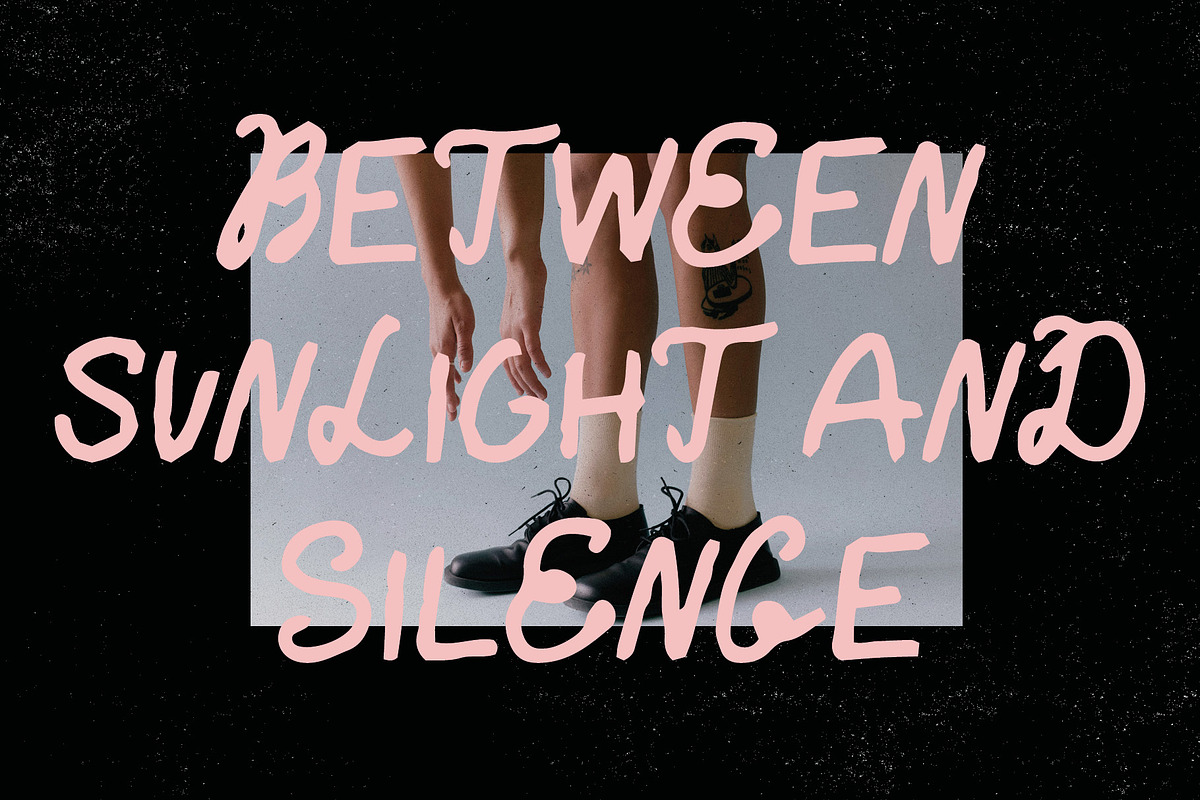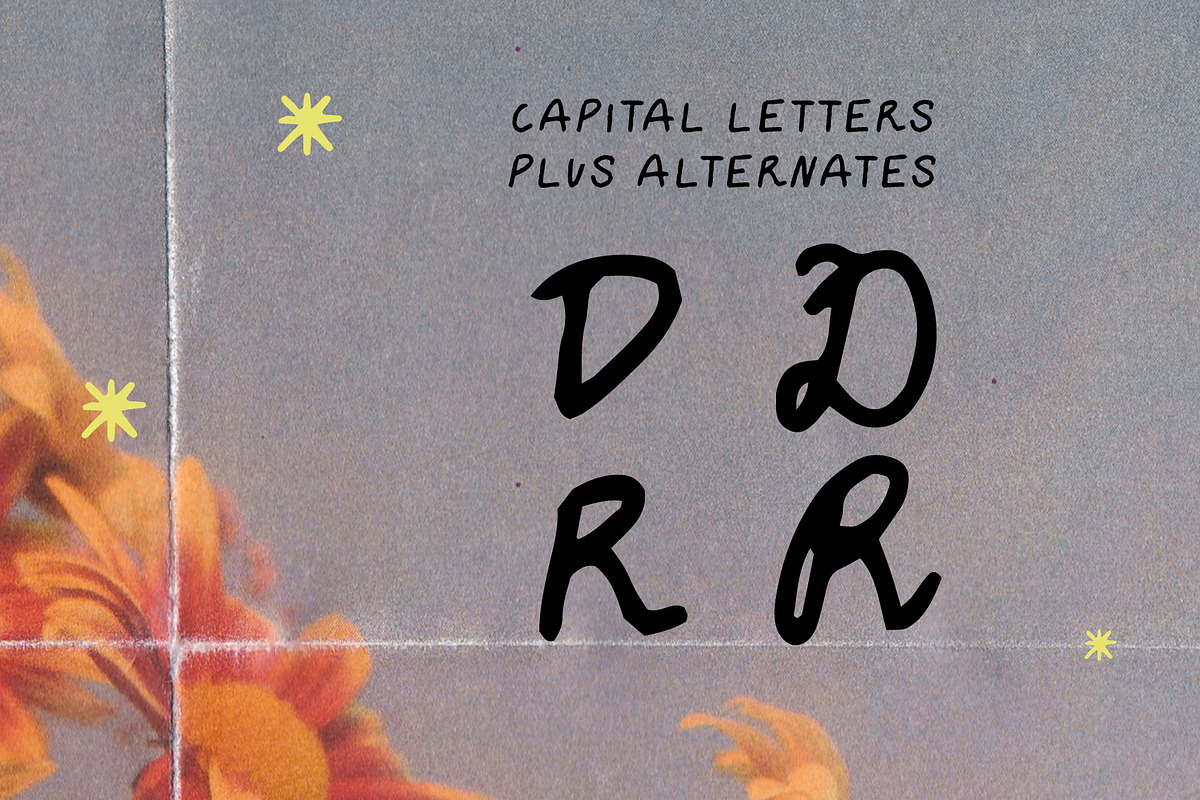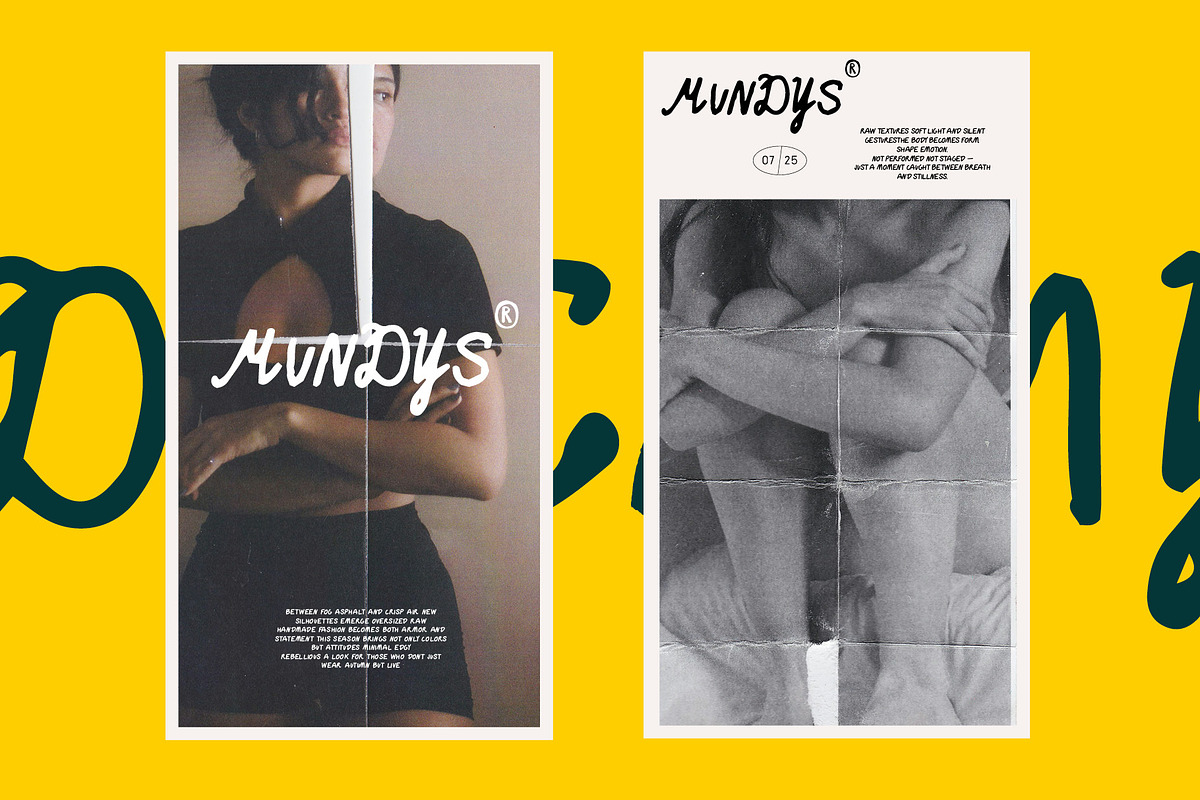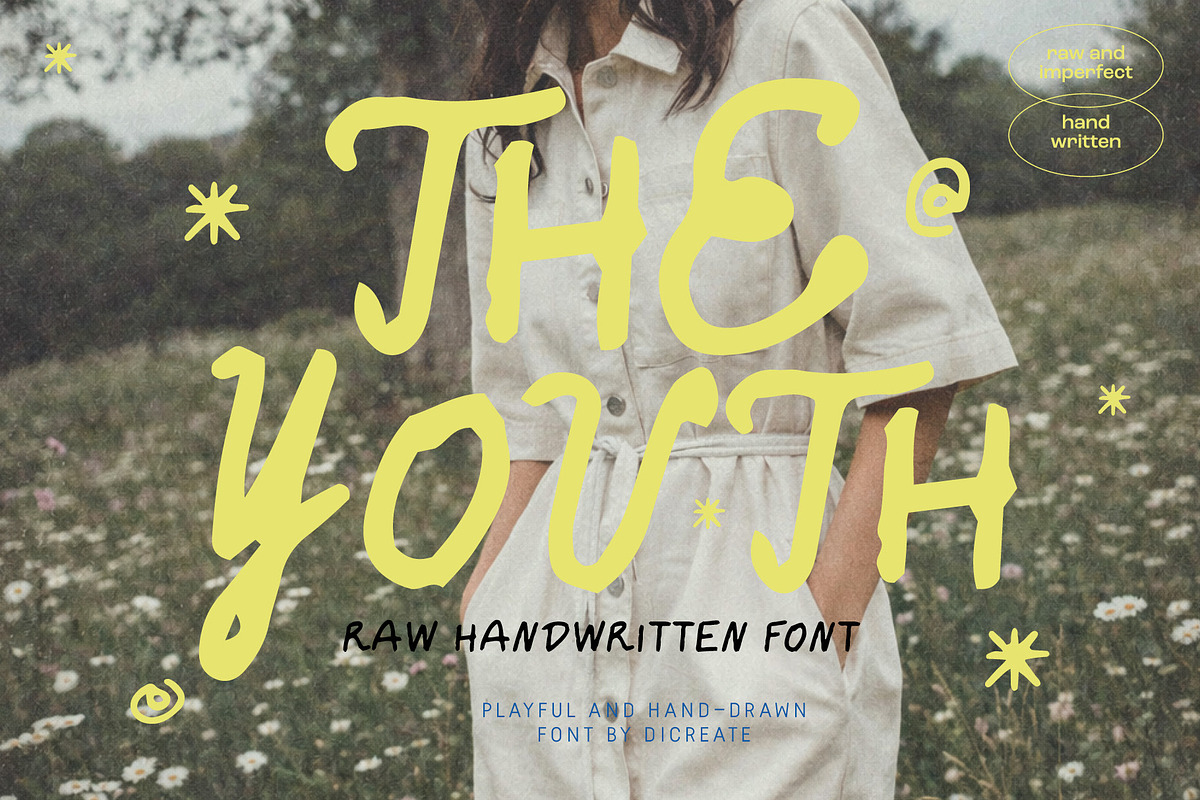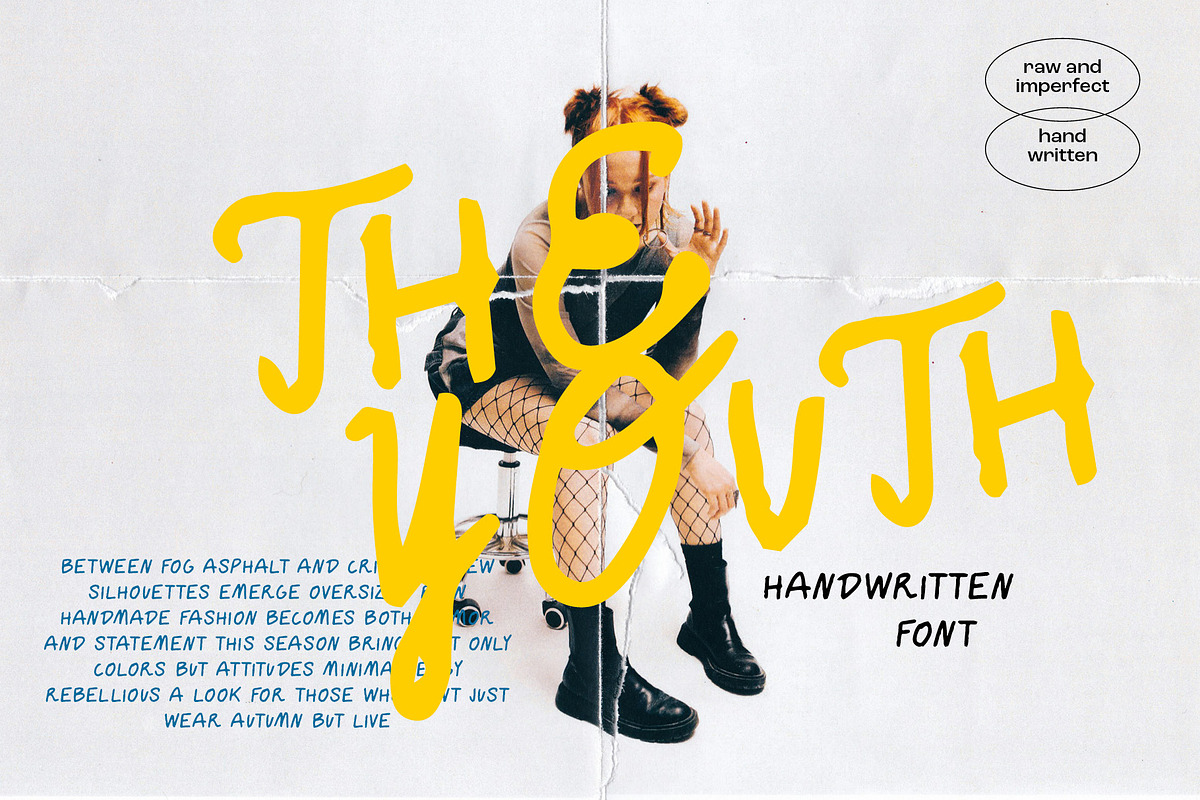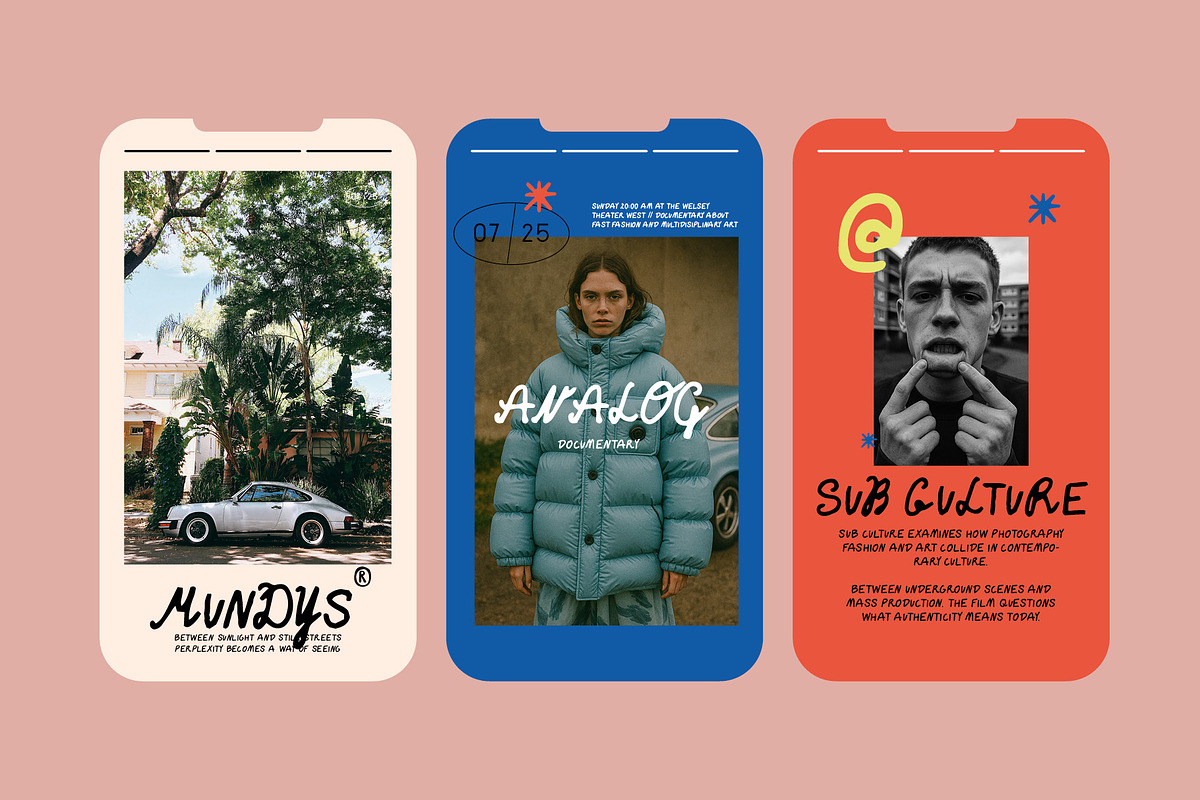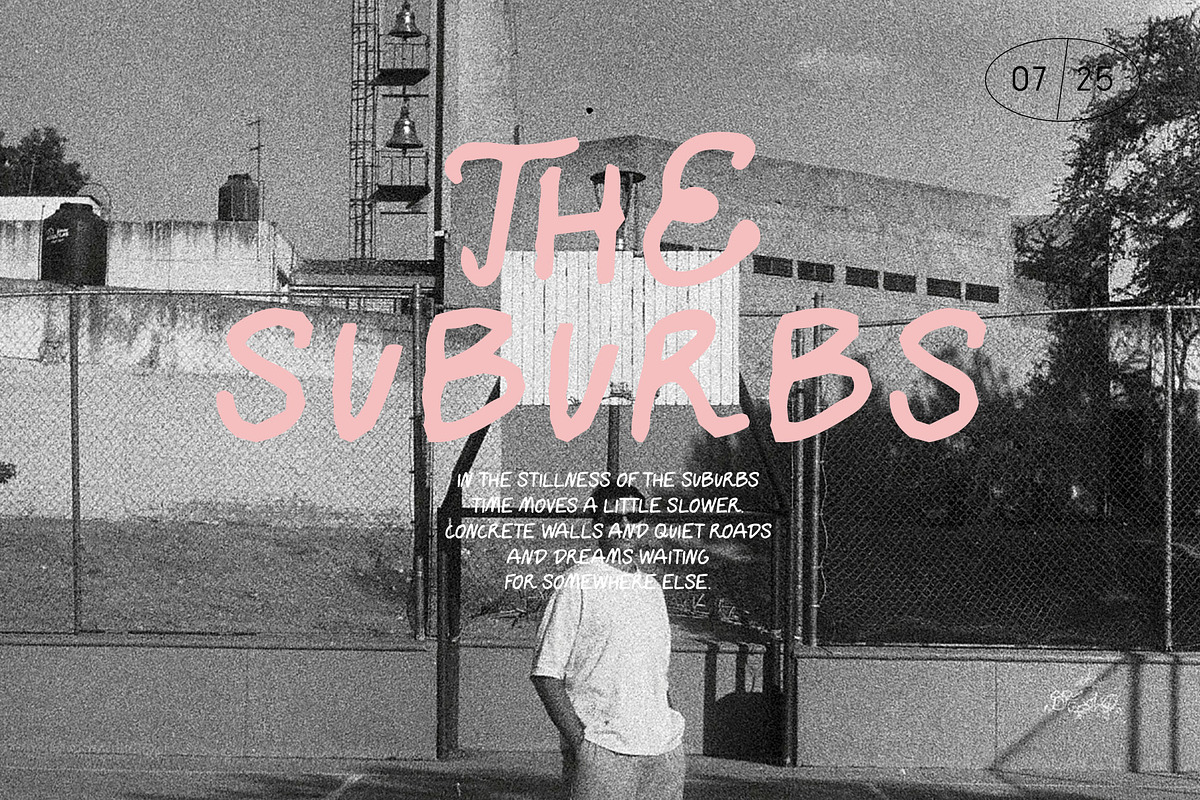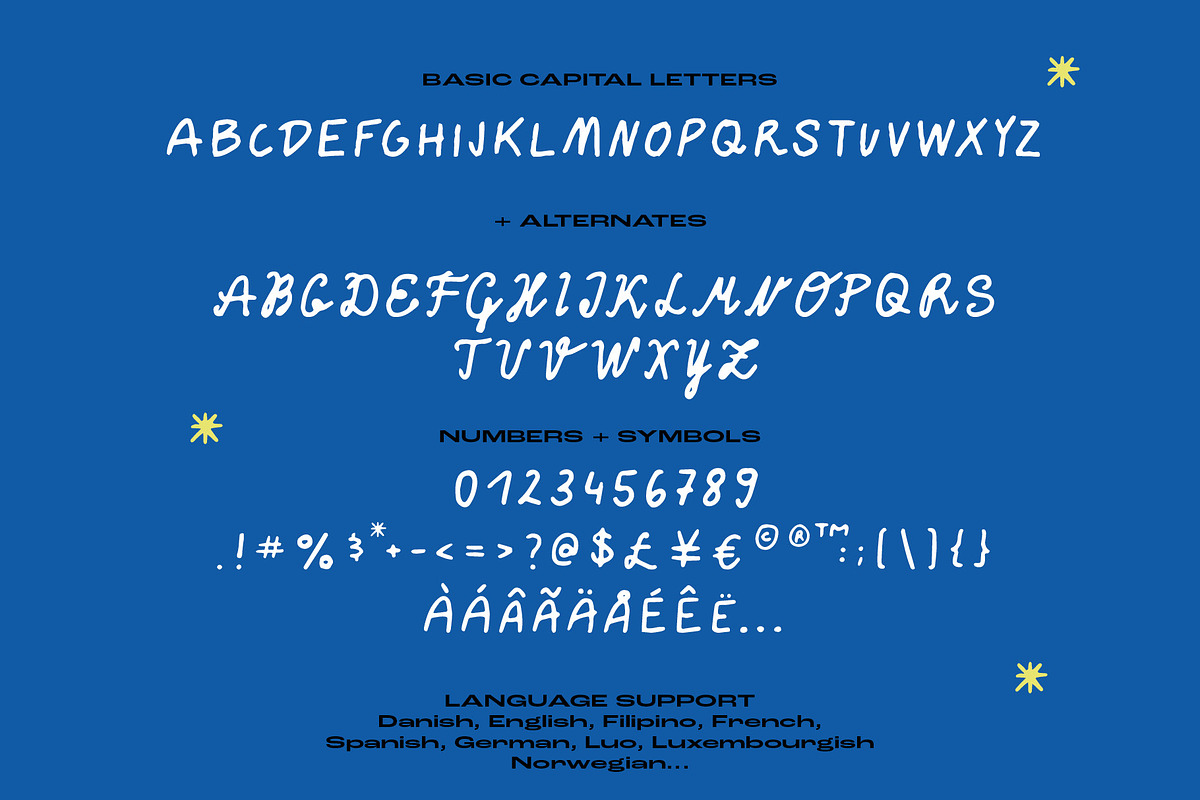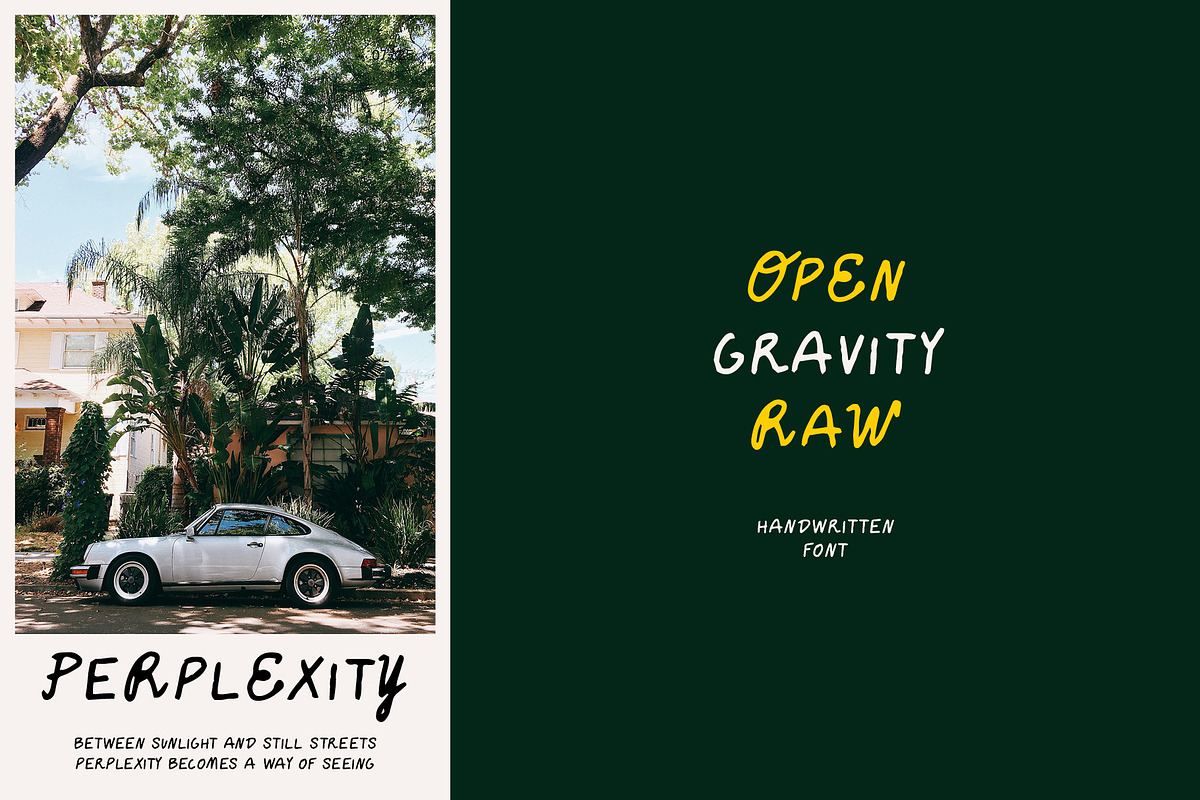
The Youth. RAW Handwritten Font
The Youth is a raw and expressive handwritten display font inspired by youth culture, grunge, street photography and independent editorial design. All characters are drawn by hand, giving the font an authentic and imperfect personality.
Designed to bring energy and human character to your projects, this font works beautifully for posters, magazine layouts, branding, album artwork, social media graphics and creative campaigns.
With its slightly irregular shapes and natural handwritten rhythm, The Youth adds a bold and emotional touch while keeping strong readability in large headlines and expressive typography compositions.
Perfect for
- Branding & Logos
- Posters & Headlines
- Editorial & Magazine Layouts
- Social Media Graphics
- Album Covers & Music Artwork
- Packaging Design
- Streetwear Branding
- Creative Campaigns
The Youth is ideal for designers looking for a raw, expressive and modern handwritten font that captures the spirit of youth culture and independent grunge editorial design. Pictures and mockups I used for this presentation are not included.